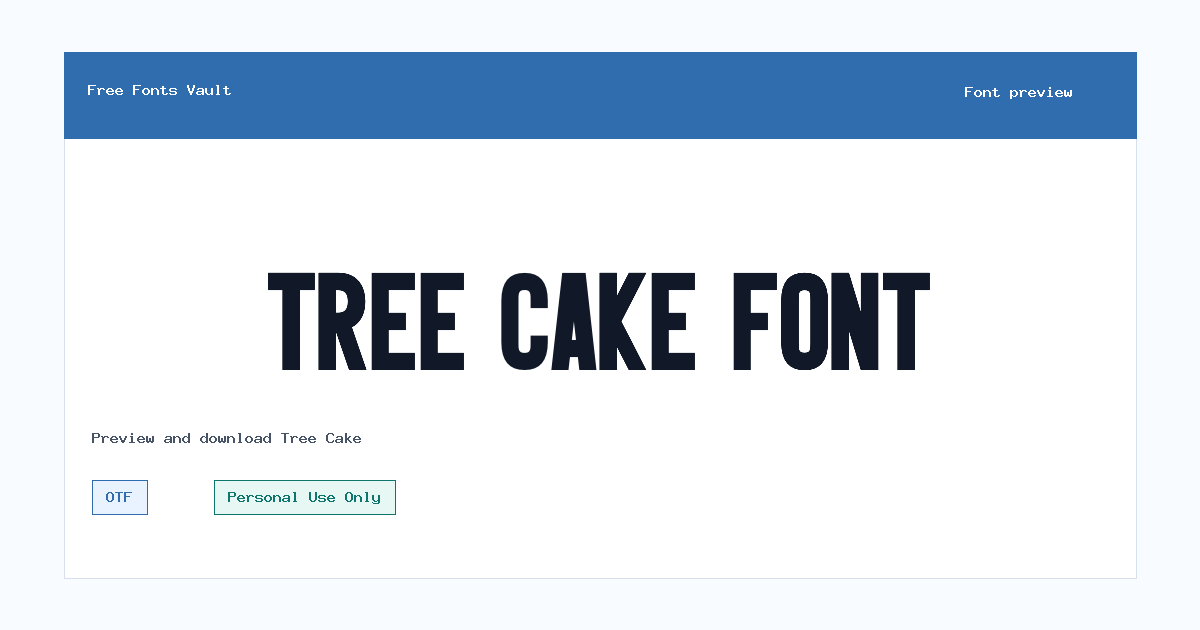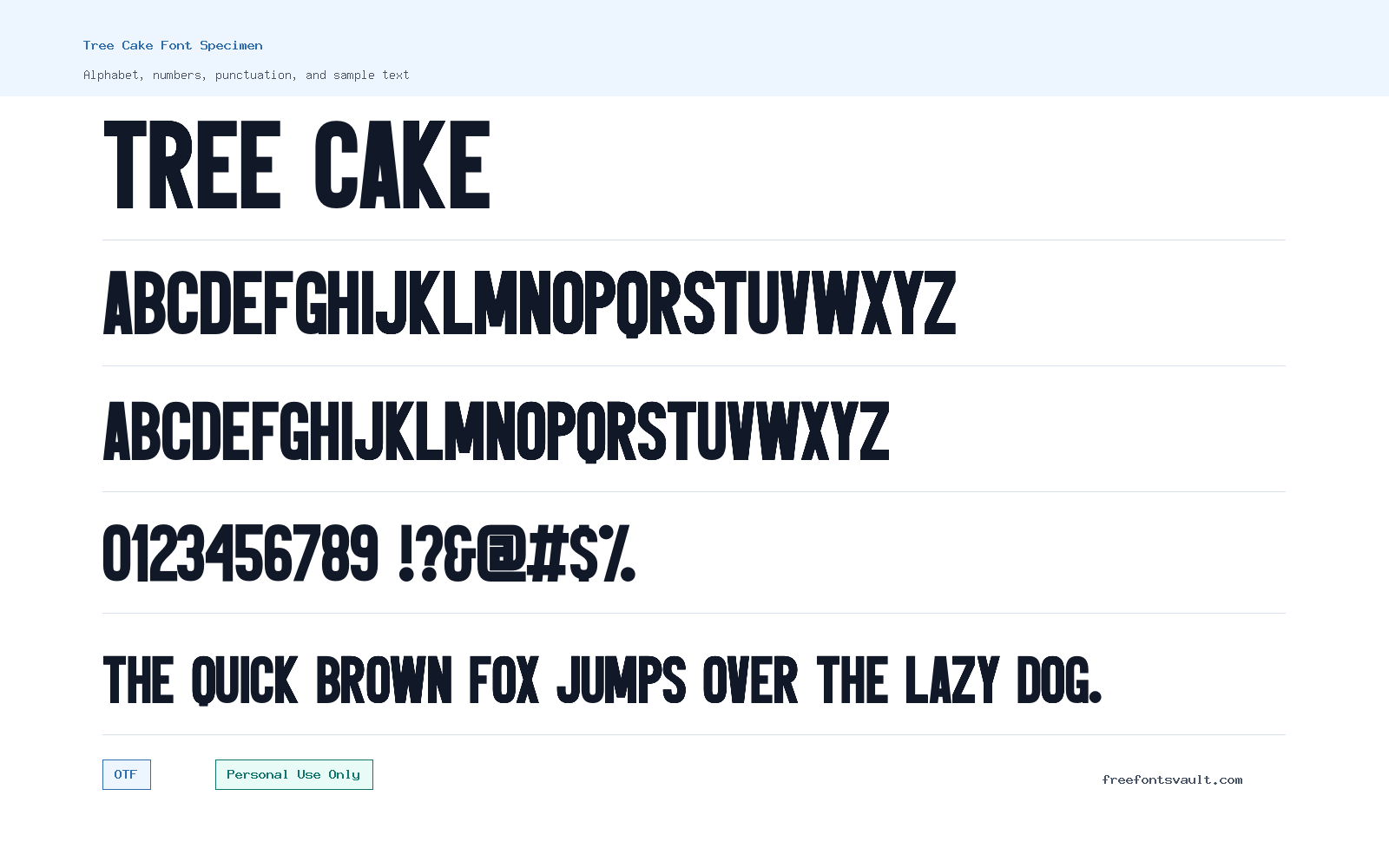
Tree Cake
Tree Cake font preview showing the family name
Tree Cake Font
Tree Cake font specimen showing alphabet, numbers, and sample text
• Designer Muhamad Rizki Utomo
Tree Cake font.
Tree Cake is a bold condensed sans serif display font with tall, heavy letterforms and a strong headline feel. It is best for short text where you want compact words with high visual weight.
About Tree Cake Font
Tree Cake has a narrow, blocky look that keeps each letter upright and firm. The strokes are thick, the spacing is tight, and the overall shape feels direct rather than decorative. In preview, it reads most clearly at large sizes, especially in all-caps titles, poster words, labels, and short graphic headings. Because the letters are condensed, it can fit longer words into limited horizontal space while still looking bold.
Use Tree Cake when the text needs impact more than quiet readability. It can work well for social graphics, YouTube-style thumbnails, event headers, packaging mockups, sports-inspired layouts, sticker text, and bold website hero words. Avoid using it for paragraphs, long menu lists, or small captions, because the tight width and heavy weight can make dense text harder to scan. For a cleaner layout, pair it with a simple neutral sans serif for body copy and keep Tree Cake for the main phrase.
• Bold condensed sans serif style with heavy vertical presence
• Best suited to display typography rather than long reading text
• Lowercase preview behaves like uppercase-style display lettering
• Posters and event headlines
• Social media graphics and thumbnails
• Logos or wordmark mockups for personal projects
• Short labels, stickers, banners, and title treatments
Tree Cake is credited to Muhamad Rizki Utomo. No foundry information or designer website was included with the font details reviewed for this page.
Test your exact words in the preview before downloading. Tree Cake is strongest in short phrases, especially at large sizes with enough spacing around the text. If a word feels too tight, try increasing letter spacing slightly or pairing it with a lighter body font so the design does not become too heavy.
What kind of font is Tree Cake?
Tree Cake is a bold condensed sans serif display font. It is made for large titles and short graphic text rather than long paragraphs.
Who designed Tree Cake?
Tree Cake is credited to Muhamad Rizki Utomo.
Where does Tree Cake work best?
It works best in short, bold uses such as posters, thumbnails, banners, stickers, and headline graphics. Keep body text in a simpler companion font for better readability.